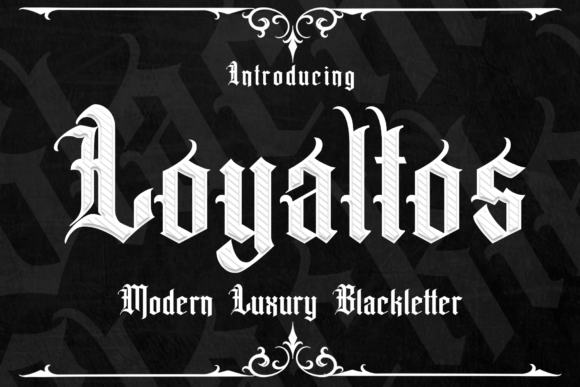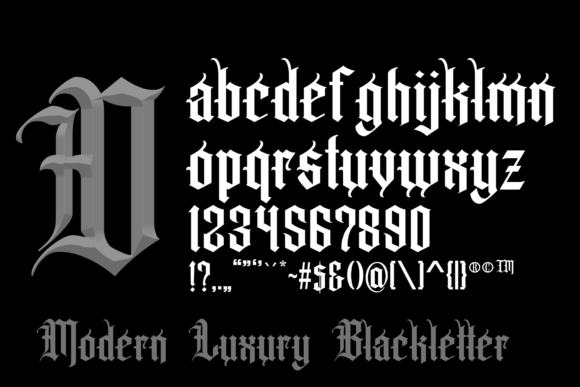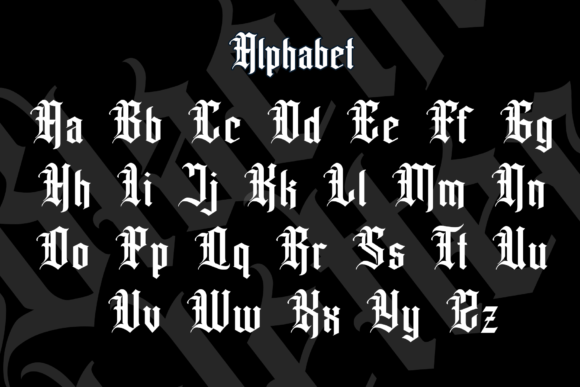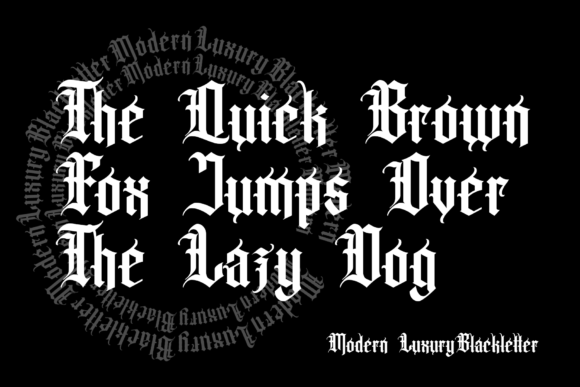
Loyaltos Font Font
About the Loyaltos Font Font
From logos to headlines, the Loyaltos Font Font is the perfect choice for making a lasting impression. Loyaltos is an authentic, victorian blackletter font. It has a vintage feel, and as a result, it matches a wide variety of designs. Fall in love with its bold, creative style, and use it for your next creative project!
Loyaltos’s bold, Victorian aesthetic makes it ideal for headlines, logos, and short text elements in branding projects, posters, and packaging designs where a strong vintage feel is desired. Its highly decorative nature, however, makes it unsuitable for body text or UI elements requiring high readability. Long paragraphs set in Loyaltos would be visually overwhelming and difficult to read.
The font’s strong personality pairs well with clean, simple sans-serif fonts like Open Sans or Lato for contrast and improved readability in supporting text. For a more harmonious pairing, consider a classic serif like Garamond or a slightly more modern serif such as Merriweather, to maintain a sense of elegance and timelessness. Avoid pairing it with other highly decorative fonts, which would create visual clutter.
Loyaltos projects an image of heritage, craftsmanship, and perhaps a touch of old-world romanticism. Brands aiming for a sophisticated, vintage-inspired aesthetic will find it a powerful asset.
Loyaltos Font Font Example